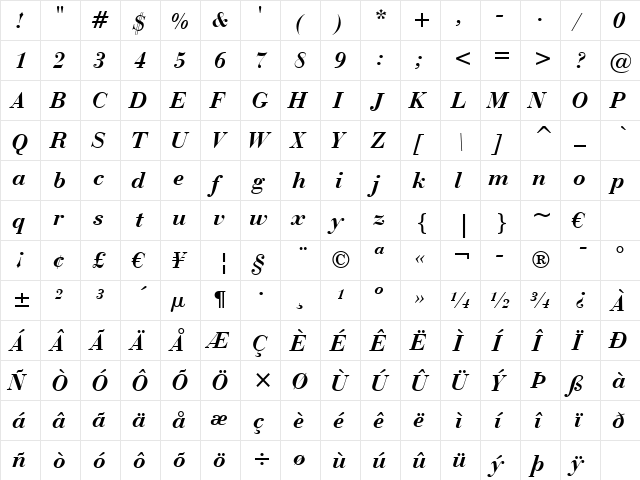
BauerBodni BT Bold Italic Font Preview
Design Context for BauerBodni BT Typeface
BauerBodni BT takes a measured approach to typography — its balanced proportions and neutral character make it a reliable workhorse for both digital and print work. Its italic angle brings a sense of urgency and motion to the letterforms. Its bold stroke weight gives it real presence on the page.
Pro Tip: Try BauerBodni BT for annotation and caption copy alongside an upright companion — the contrast in angle creates a dynamic but ordered typographic system.